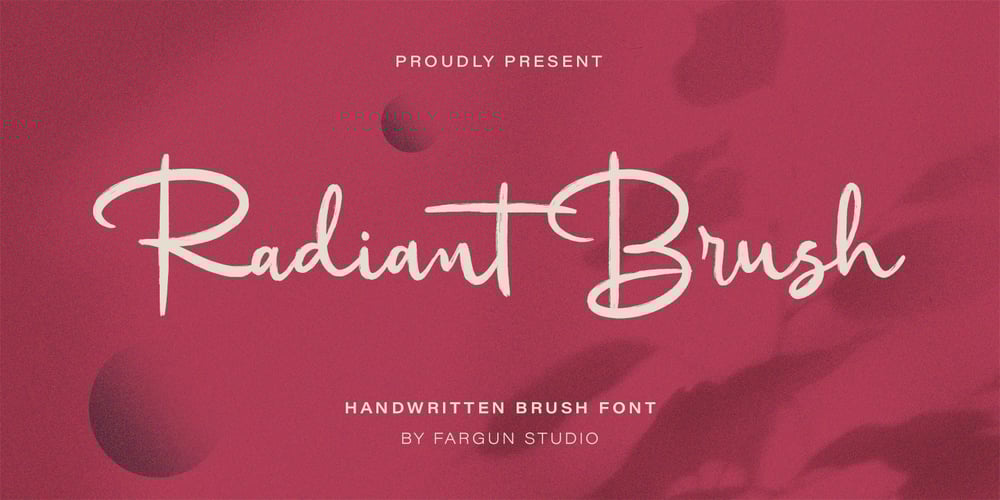
Radiant Brush Font Family was designed by Fajar Gunawan and published by Fargun Studio. Radiant Brush contains 1 styles and family package options. Radiant Brush is a beautiful Handwritten Font, A beautifully handcrafted font combined with brush style that’ll make your guests sing and elevate your projects! Every stroke, and curve was created to entice happiness and elegance. It suitable for wedding invitation, greeting cards, T-Shirt, Logo or any design that you create. Comes with a complete set of standard characters, Alternates, Ligatures, Punctuation & International glyphs. Happy Designing!